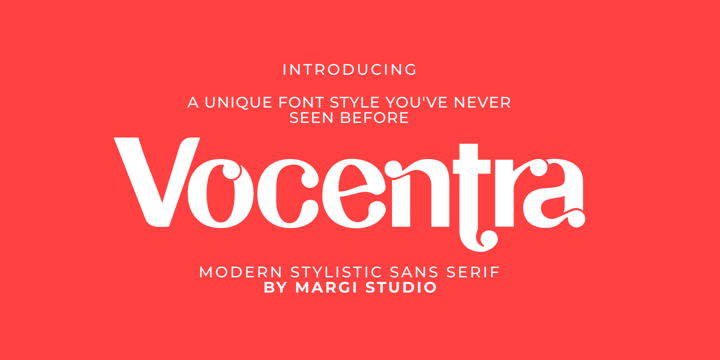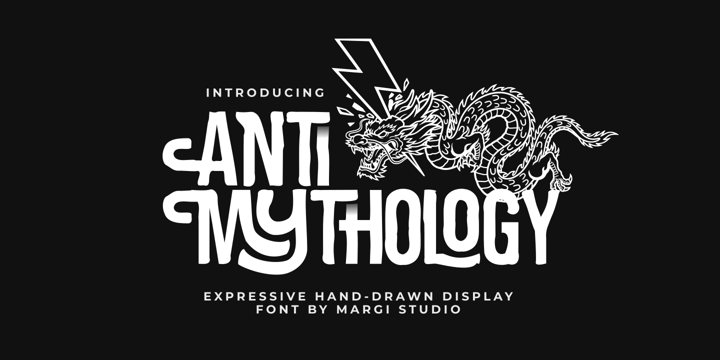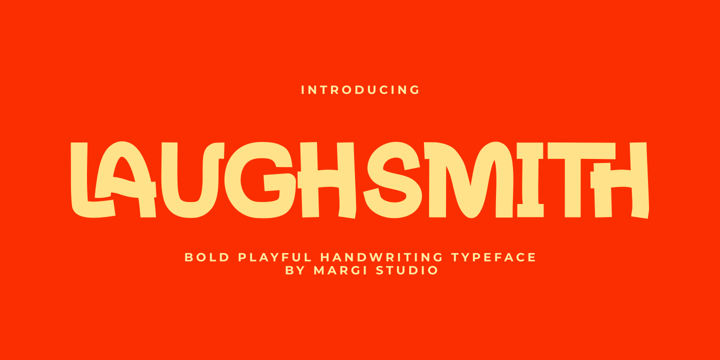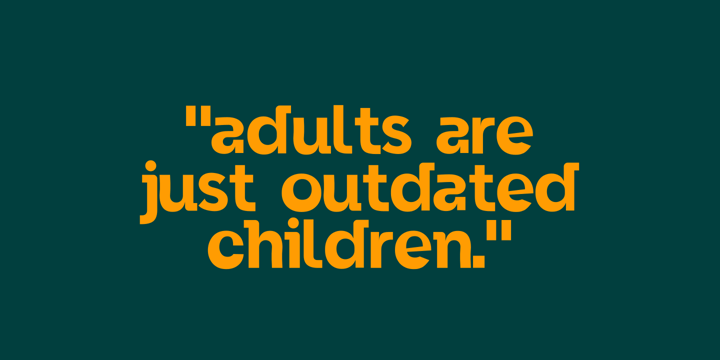
1st Bundle
Ultimate Design Toolkit: 1 Bundle for All Style Designs
One Collection, Infinite Possibilities.
Tired of wasting hours searching for the perfect font for every new project? It is time to streamline your creative workflow. The "1 Bundle for All Style Designs" is your all-in-one typographic solution, curated to cover every aesthetic—from serious corporate branding and elegant editorial pieces to playful social media graphics.
Why You Need This Bundle
Ultimate Versatility: Engineered to adapt to any style—minimalist, retro, modern, or bold. Whatever the brief, this bundle has the right look.
Premium Craftsmanship: Every character is meticulously crafted for perfect legibility across all platforms, from high-resolution digital screens to professional print materials.
Ready for Perfection: Packed with OpenType features, ligatures, and stylistic alternates to give your work that professional, custom-made finish.
Workflow Efficiency: Stop hunting through thousands of individual fonts. With this bundle, you have a cohesive, high-quality library ready to use at your fingertips.